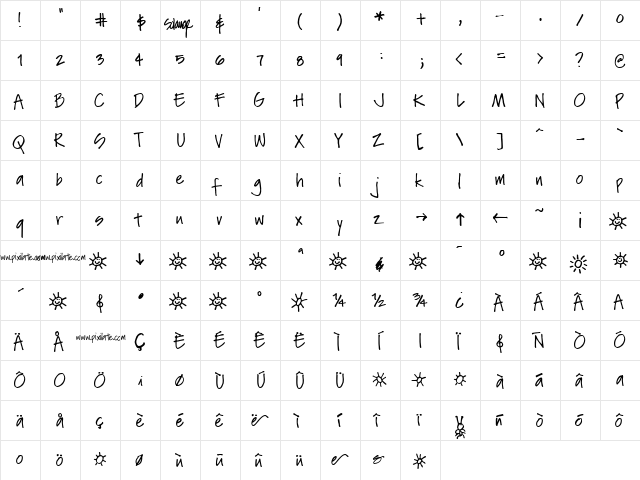
Soli Regular
Design Context for Soli Typeface
Soli is a composed and adaptable typeface that performs quietly and consistently across a wide range of design contexts.